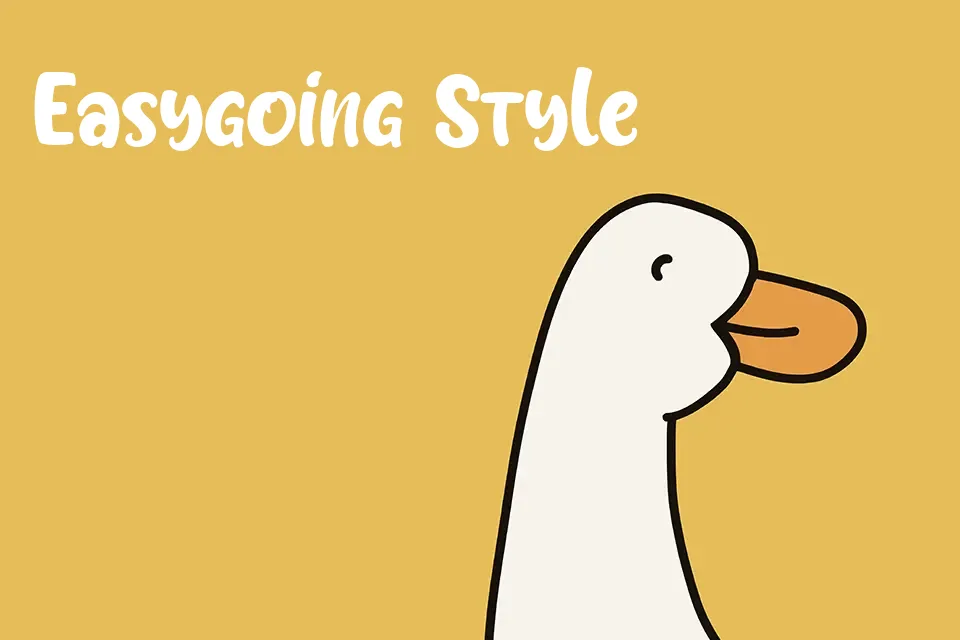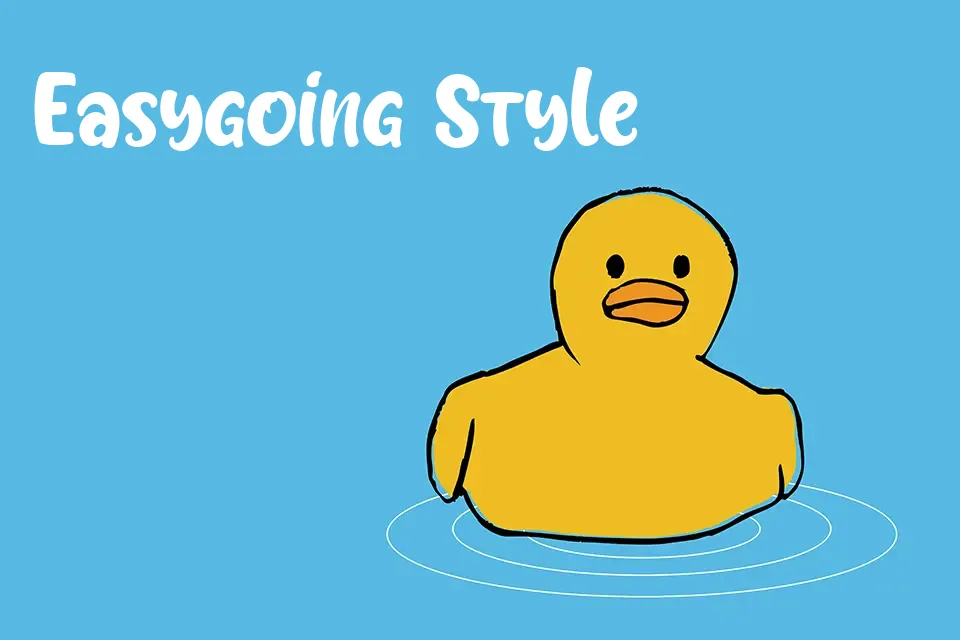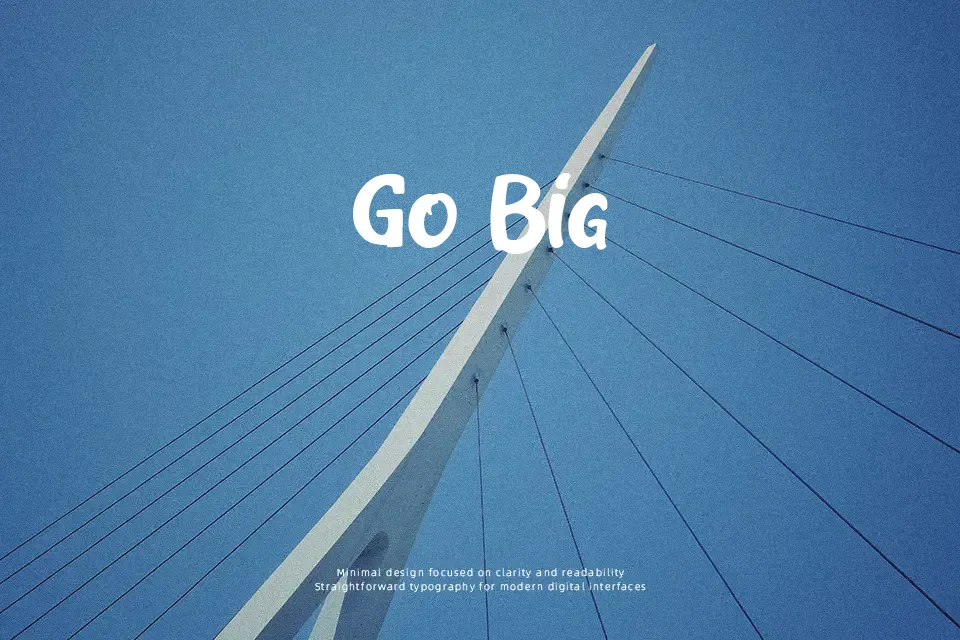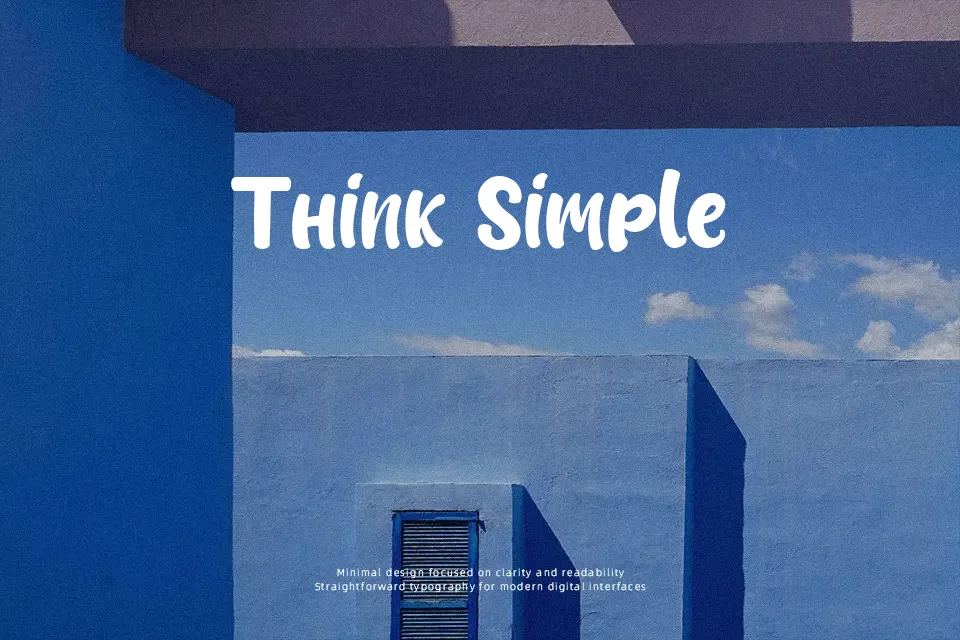
Candyful Font
Defined by plump contours and soft terminals, Candyful Font presents a lively handwritten structure with uniform heavy strokes and relaxed character widths. The design maintains balanced spacing that gives individual glyphs room to breathe, while wide internal counters preserve letterform clarity at prominent scales. In practical application, the typeface excels across toy branding, animated title sequences, and educational posters where an approachable personality is essential. However, the thick stroke weight and soft silhouettes reduce definition when applied to dense paragraphs or small captions. The open spacing helps maintain clarity in larger headlines, making it an effective choice for prominent display settings.
– children book covers
– toy packaging
– school event posters
– animated title graphics
– body text in editorial publications
– mobile app interface labels
– legal documentation
– dense tabular data
Perfect for advertising, headline, and kids, with a bold and display style.